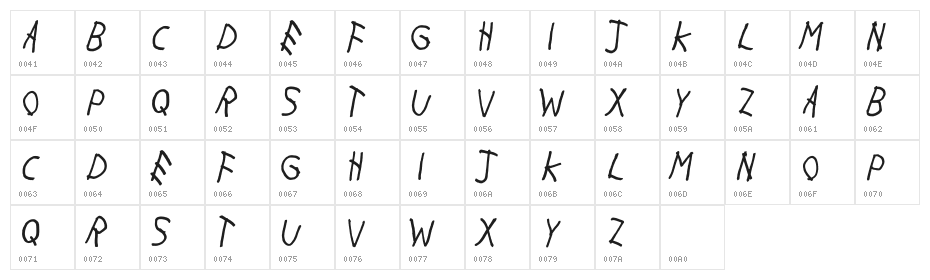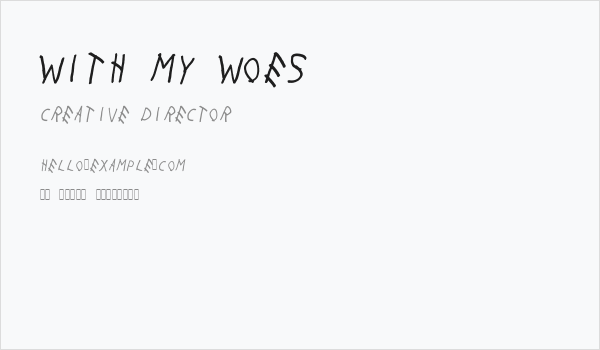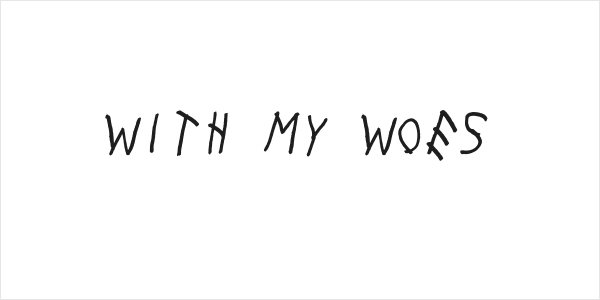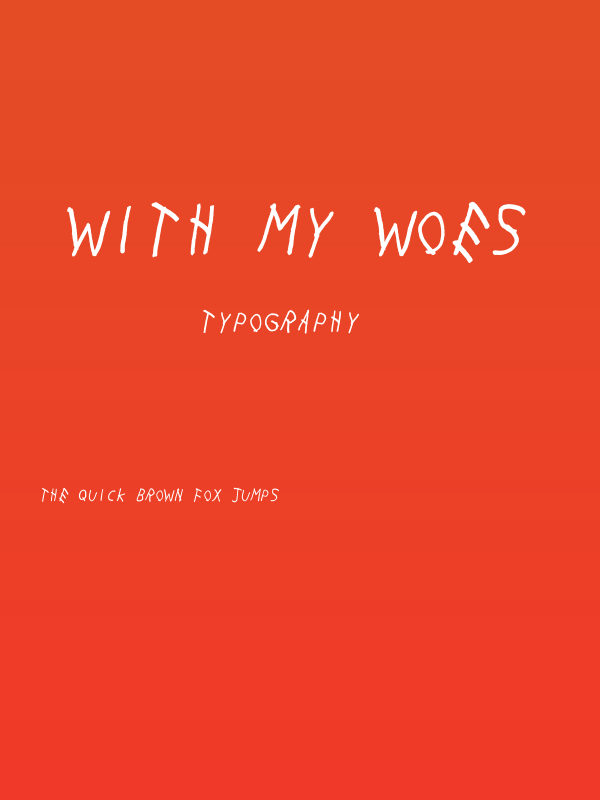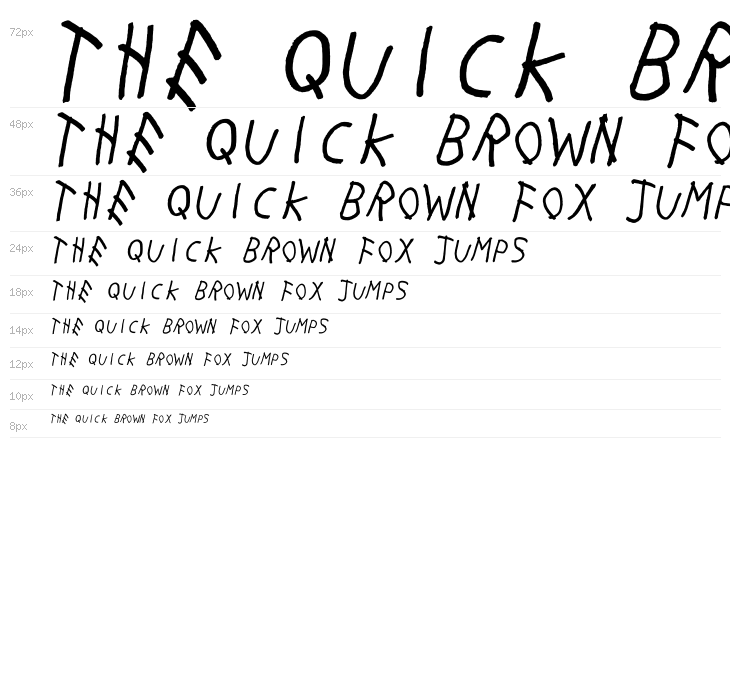
With My Woes Font
With My Woes Description
This font features a playful and casual handwritten style, characterized by its irregular and slightly tilted letterforms. The strokes are uneven, giving it a dynamic and lively appearance. The uppercase and lowercase letters maintain a consistent style, with a slight slant that adds to its informal charm. The font's unique character is further emphasized by its quirky and whimsical design, making it stand out in creative projects. It lacks traditional serifs, enhancing its modern and approachable feel. The overall look is reminiscent of a personal note or a casual invitation, perfect for adding a touch of personality and warmth to any text.
| Use Case | Headlines, Informal Text, Creative Projects |
| Proposed Projects | Ideal for greeting cards, personal invitations, children's book covers, and playful branding. |